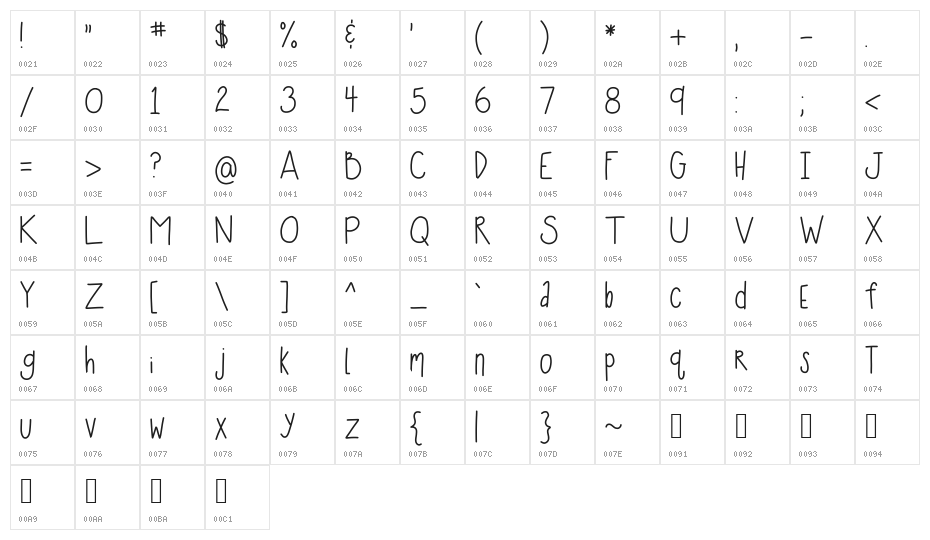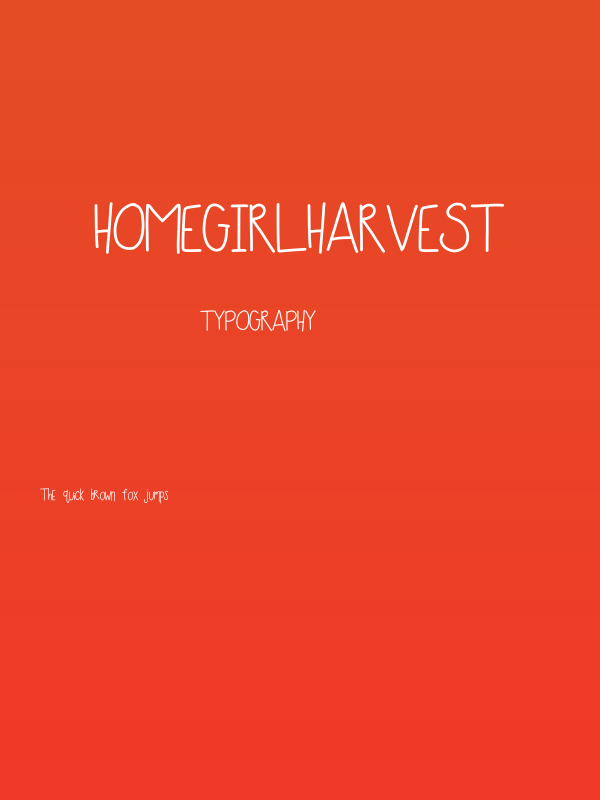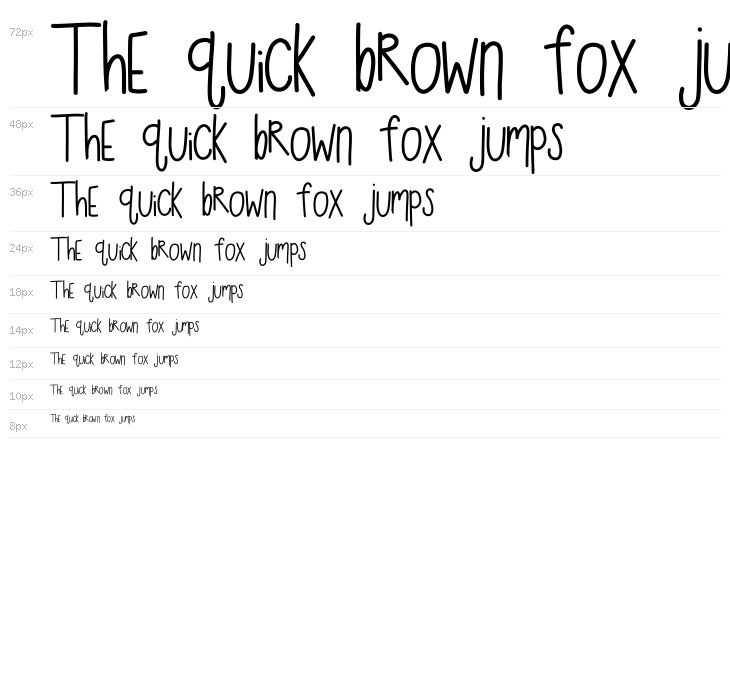
HomegirlHarvest Font
HomegirlHarvest Description
This font features a playful and casual handwritten style, characterized by its tall, narrow letters with a slightly irregular baseline. The strokes are smooth and rounded, giving it a friendly and approachable appearance. The uppercase and lowercase letters maintain a consistent style, with the lowercase letters slightly smaller and more compact. Numbers and special characters are designed to match the overall aesthetic, ensuring a cohesive look across all text. The font's informal nature makes it ideal for projects that require a personal touch.
| Use Case | Headlines, Informal text, Personal projects |
| Proposed Projects | Ideal for greeting cards, children's books, personal blogs, and casual branding projects. |